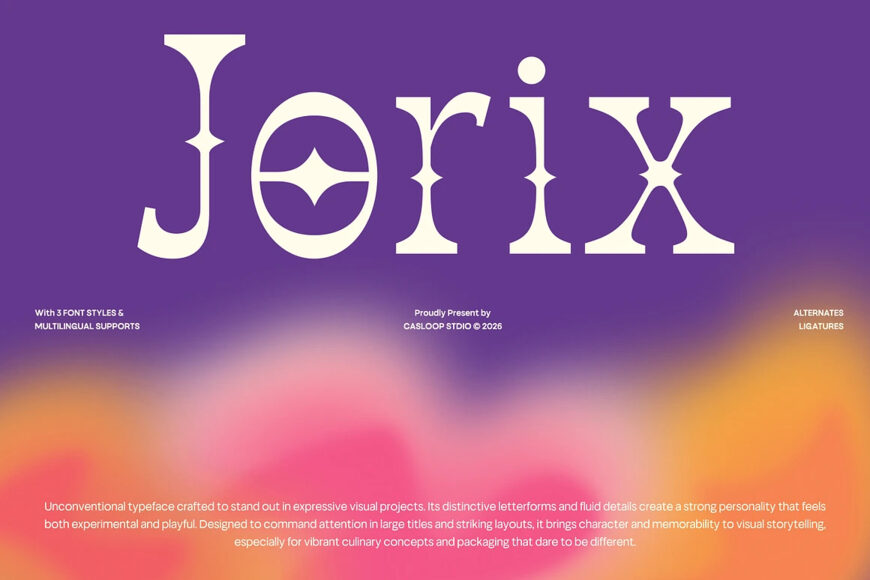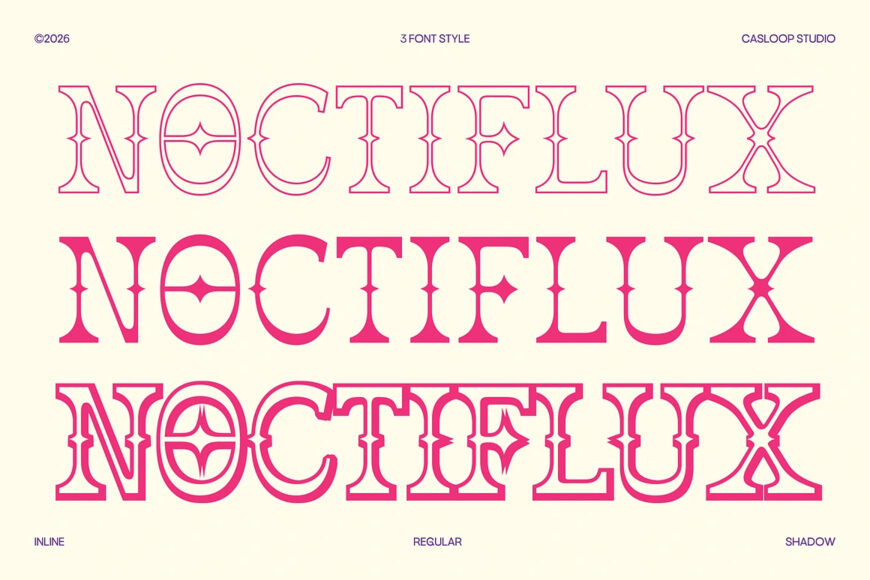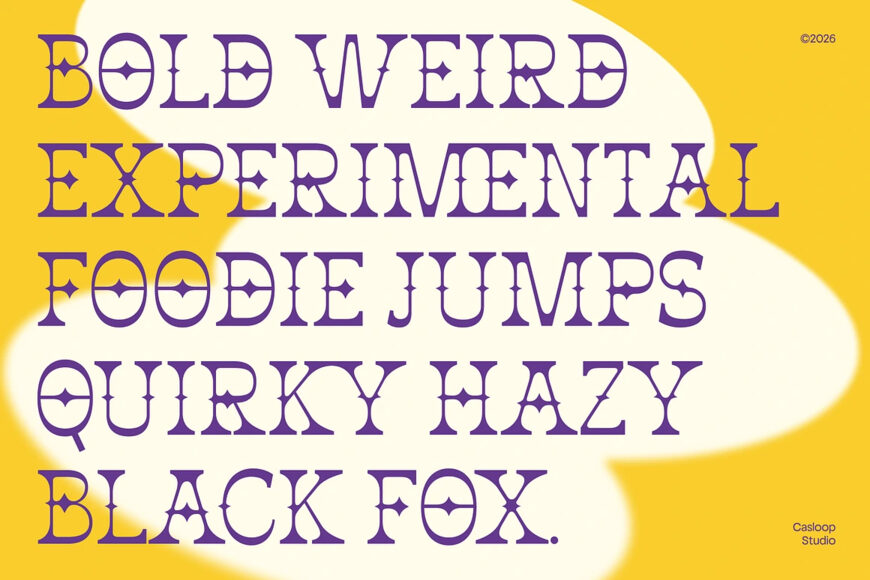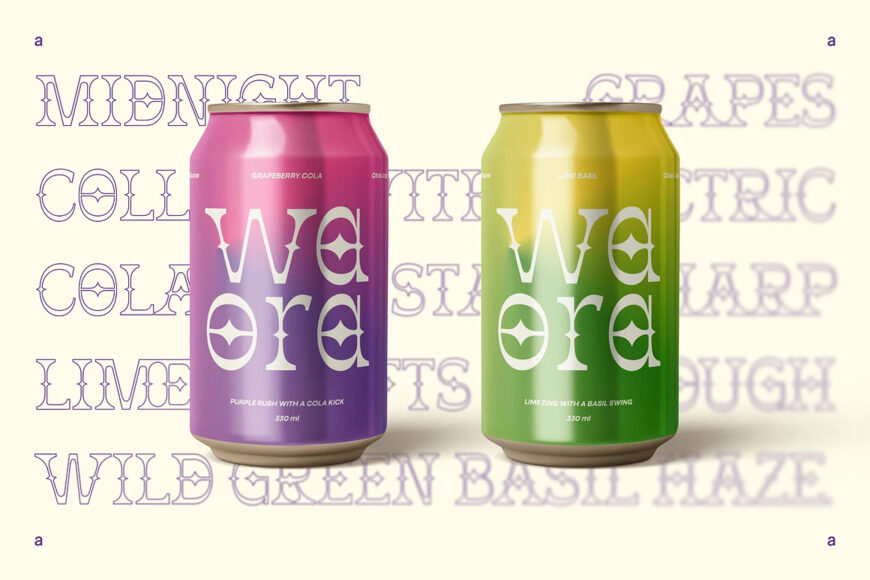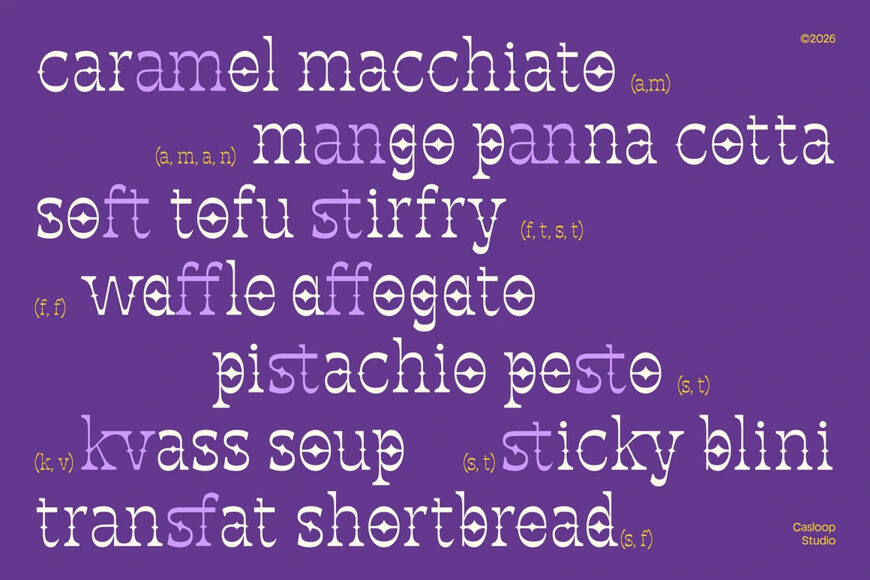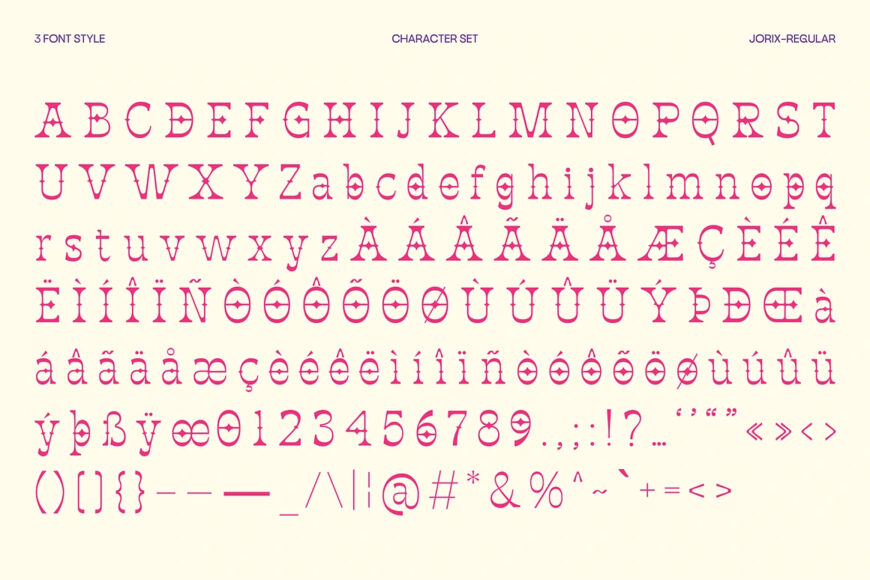
Jorix Font Family
Jorix is a flowing, experimental display font featuring star-like shapes that penetrate the inner spaces of O, A, E, S, and R. This striking detail creates a sharp contrast between its classic serif foundation and unexpected graphic distortion.
Its bold, unconventional character makes Jorix ideal for creative agencies, branding, food visuals, headlines, and identity projects seeking uniqueness, visual impact, and a fearless experimental aesthetic.